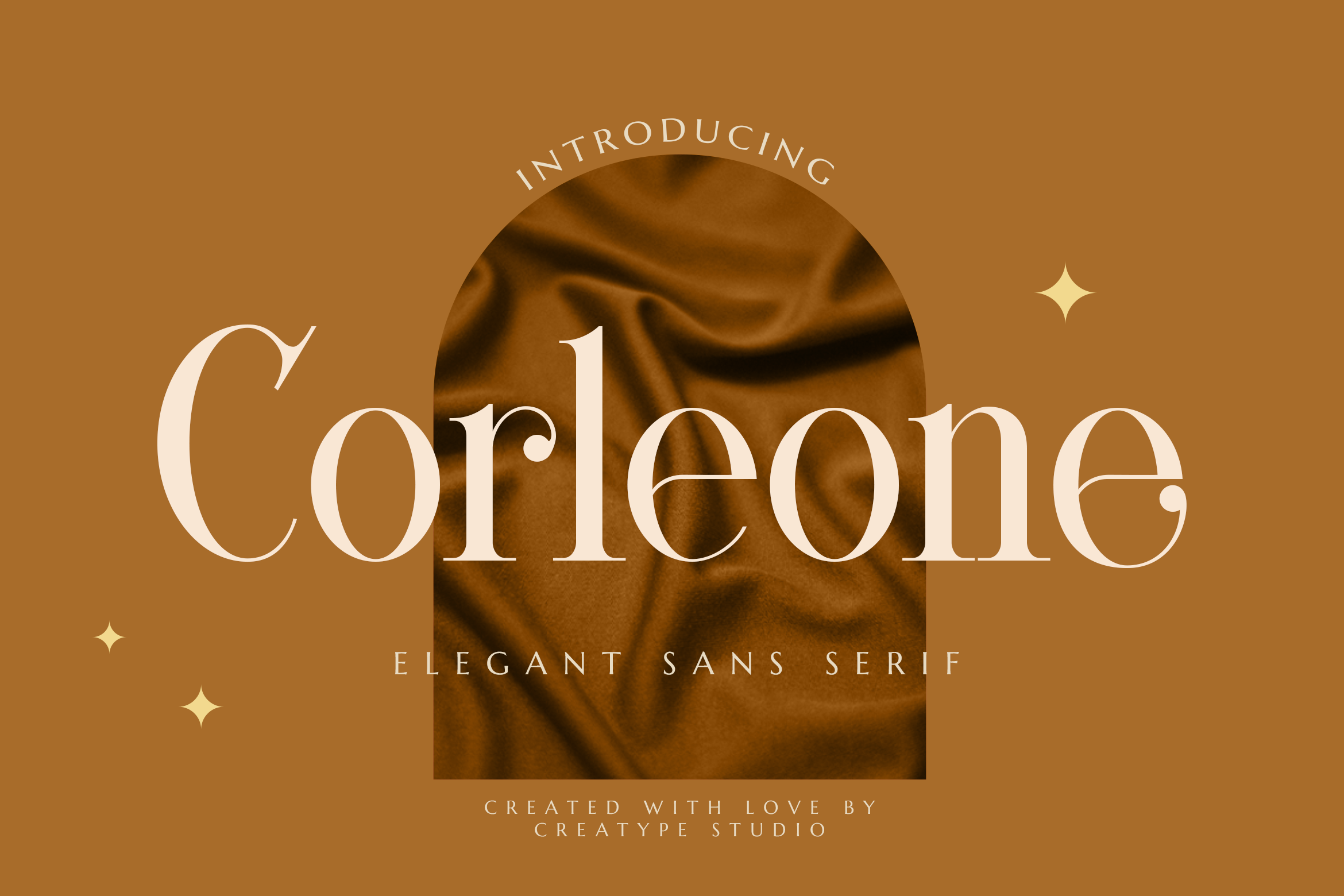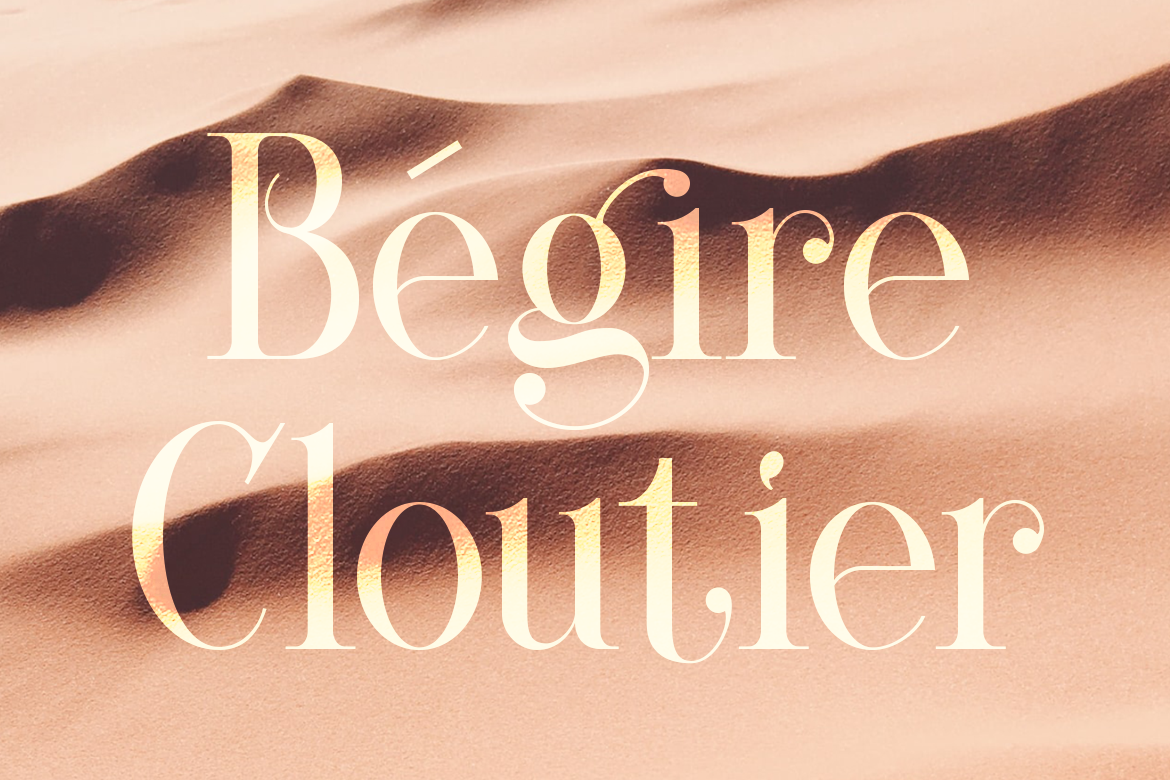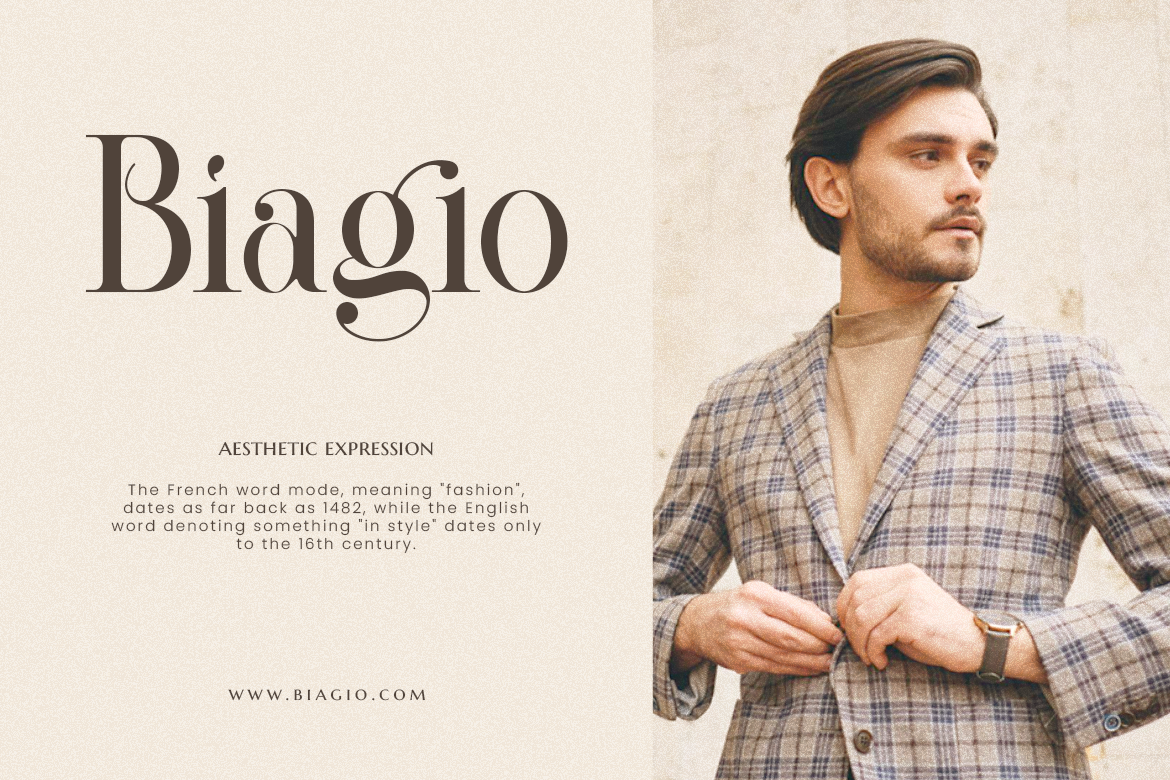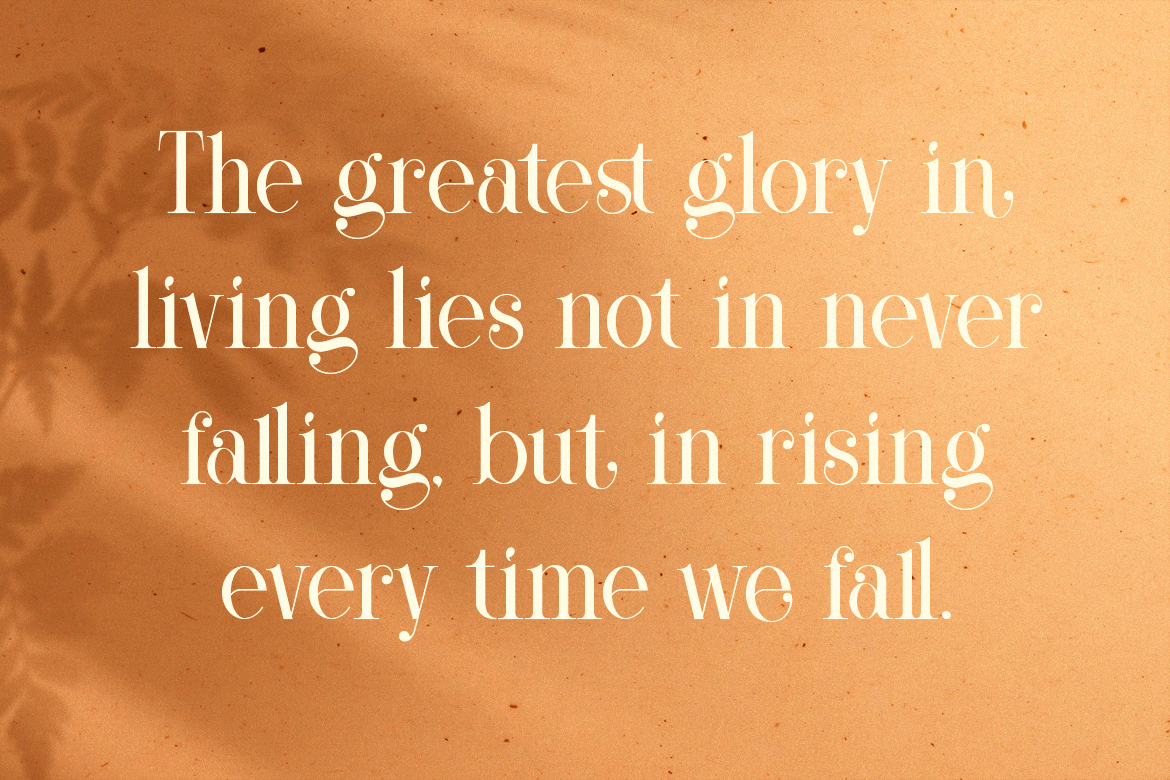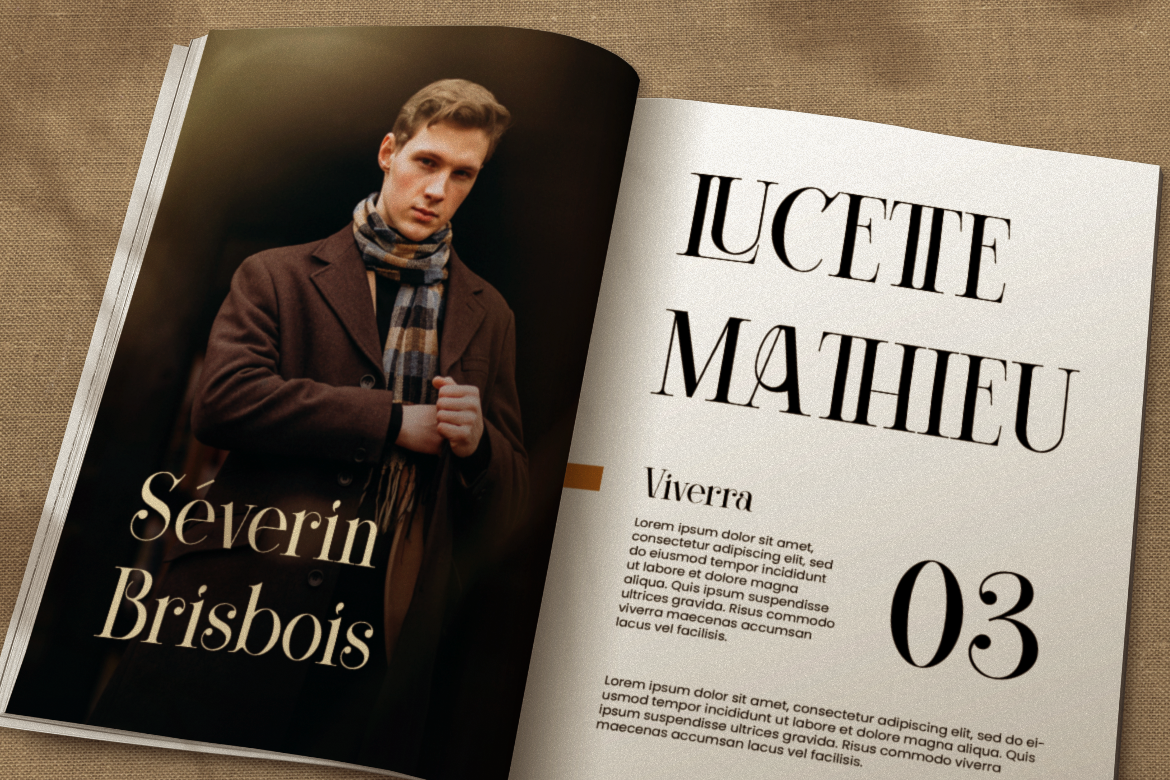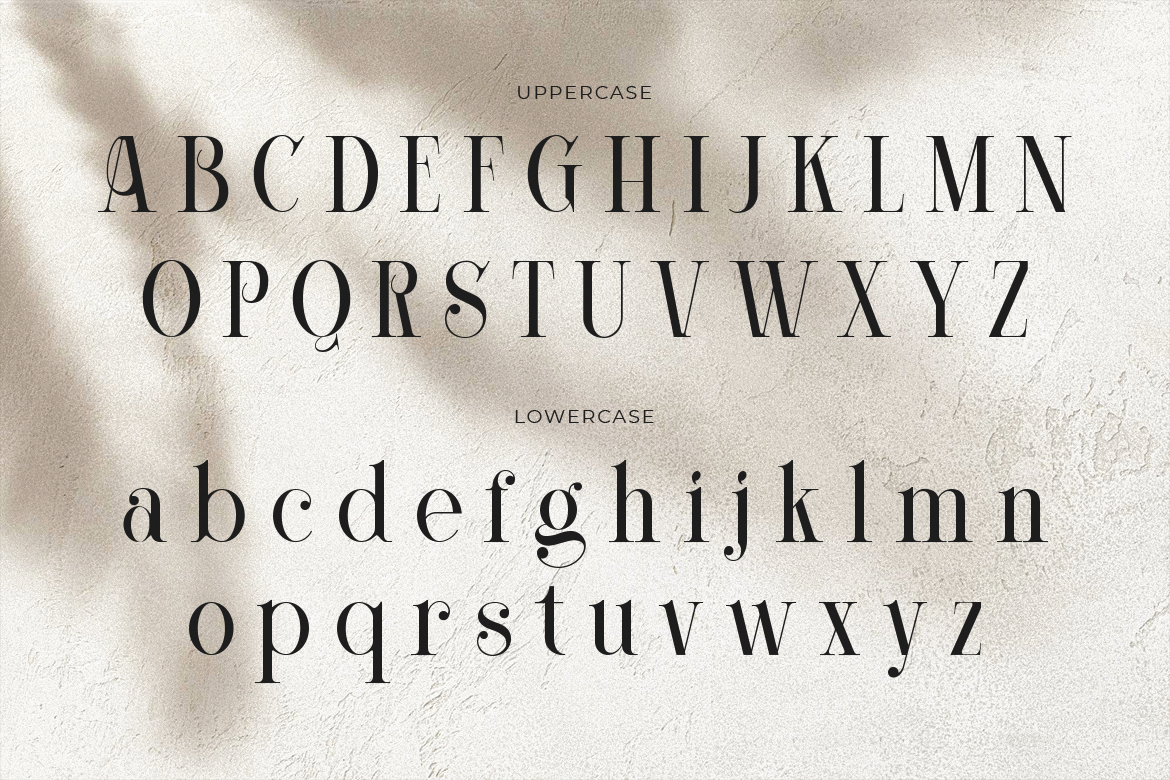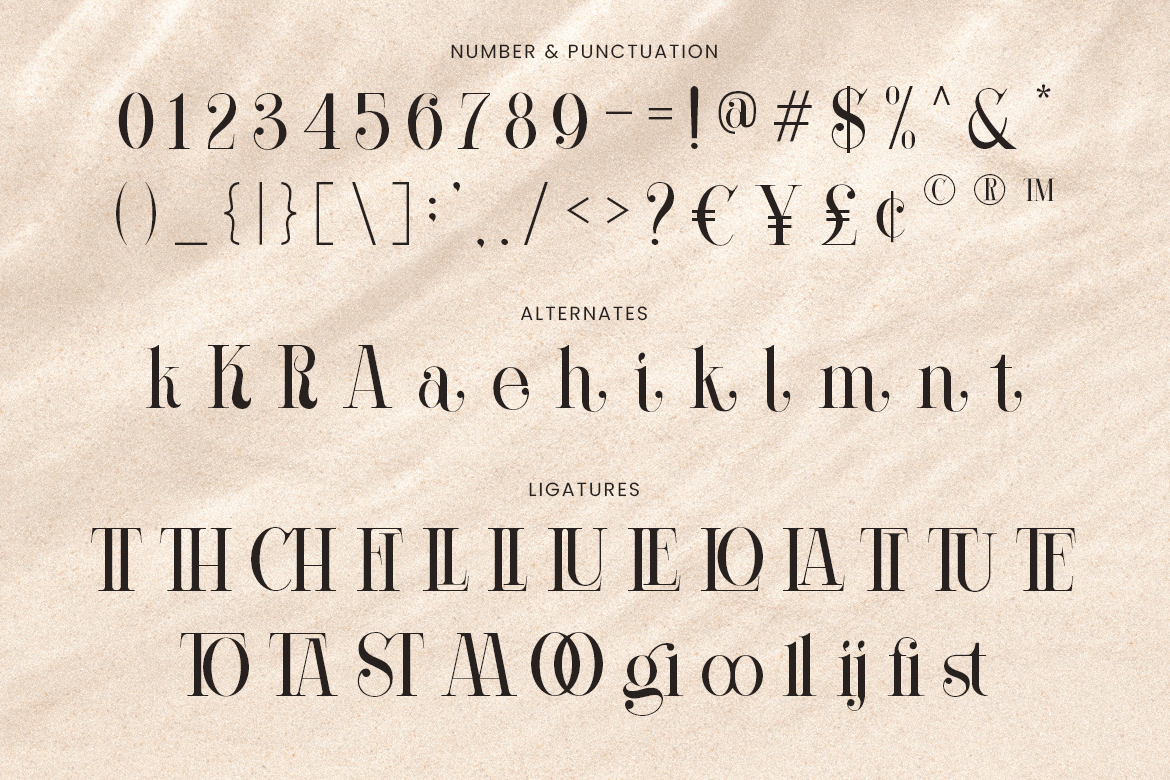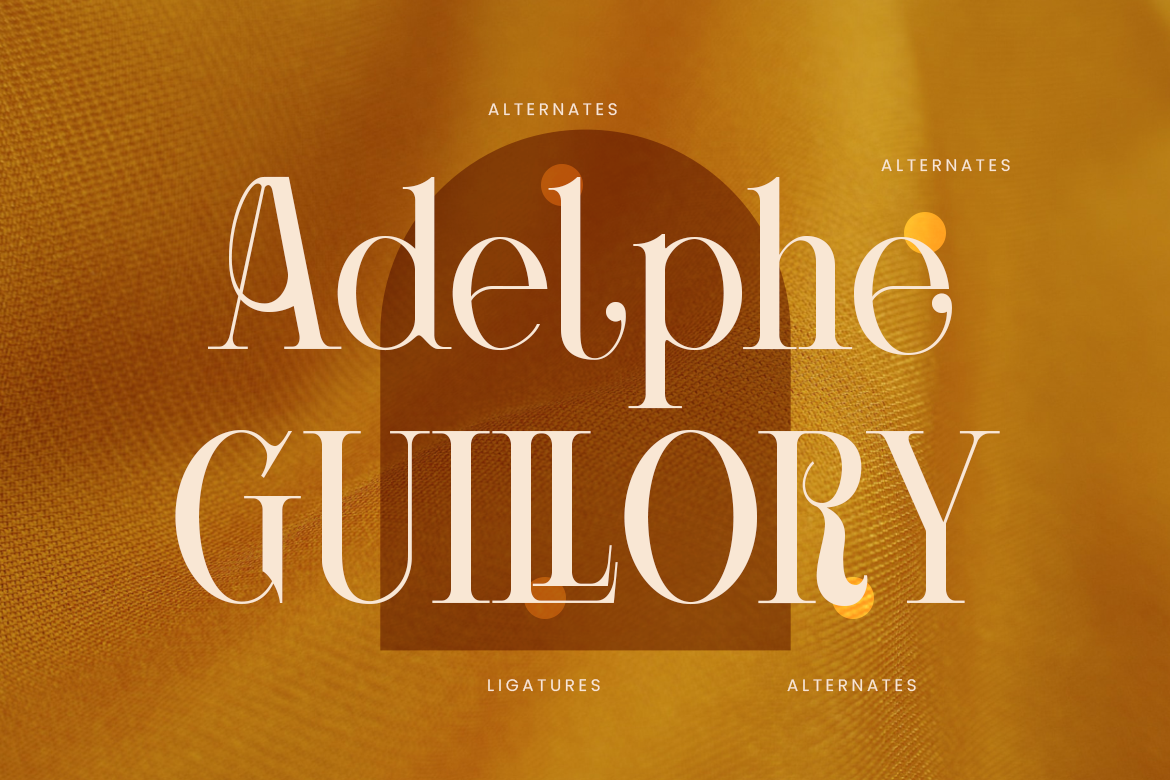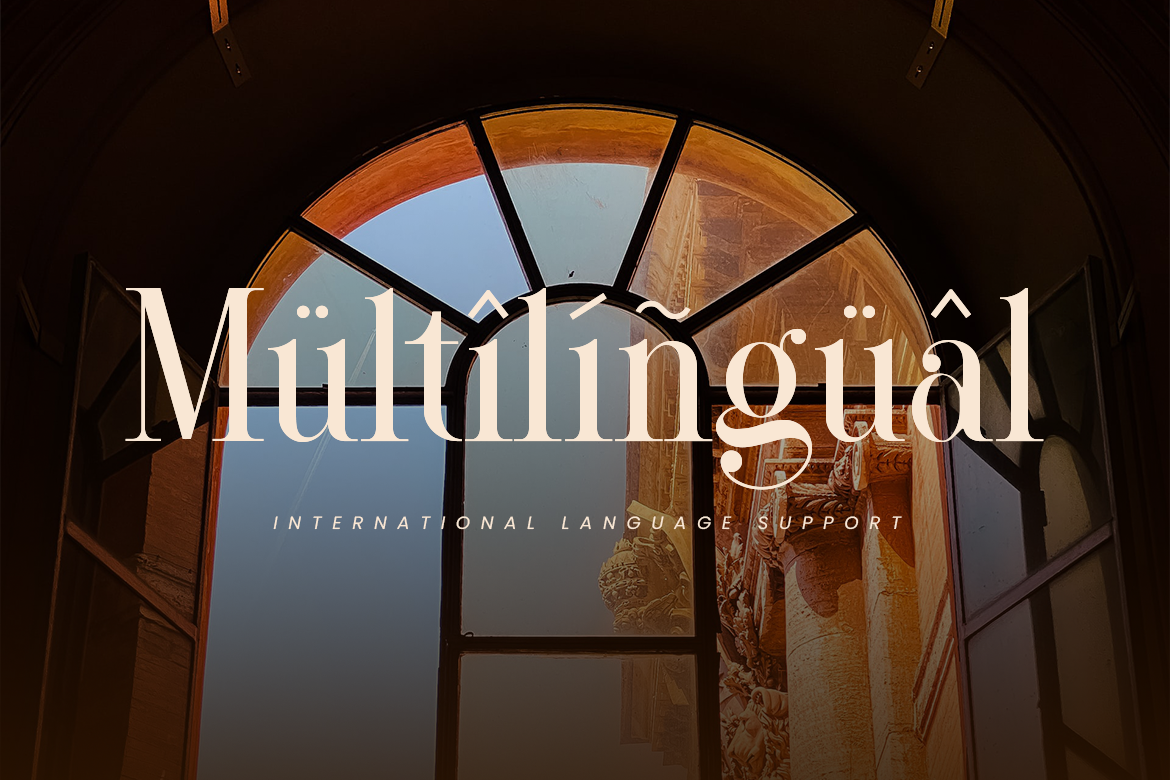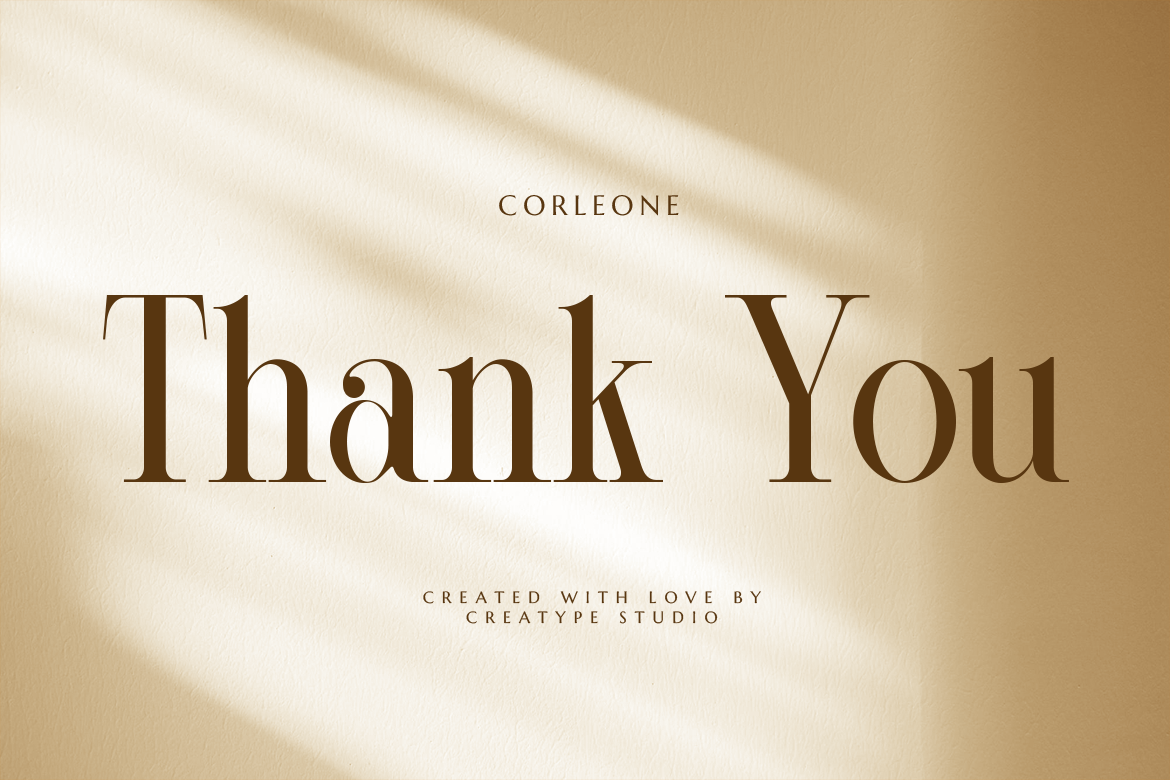
Corleone Elegant Serif
Corleone, It’s refined, graceful character that imbues every word with a sense of timeless charm and classy typeface that speaks softly yet powerfully
Corleone is perfect for branding projects, logos, wedding designs, social media posts, advertisements, product packaging, product designs, label, photography, watermark, invitation, stationery, and any projects that need handwriting taste.
- Fonts include multilingual support for; Afrikaans, Albanian, Czech, Danish, Dutch, English, Estonian, Finnish, French, German, Hungarian, Italian, Latvian, Lithuanian, Norwegian, Polish, Portuguese, Slovak, Slovenian, Spanish, Swedish.